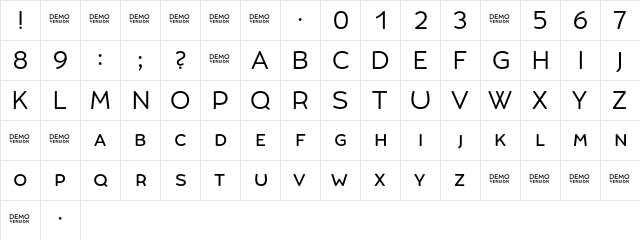
Umba Soft SC Regular Demo
| Foundry | Anita Juergeleit |
| Designer | Anita Juergeleit |
Design Context for Umba Soft Typeface
Umba Soft offers clean, dependable letterforms without strong stylistic allegiance, making it a practical choice for designers who need flexibility.